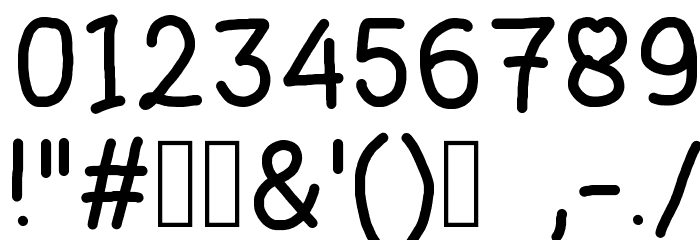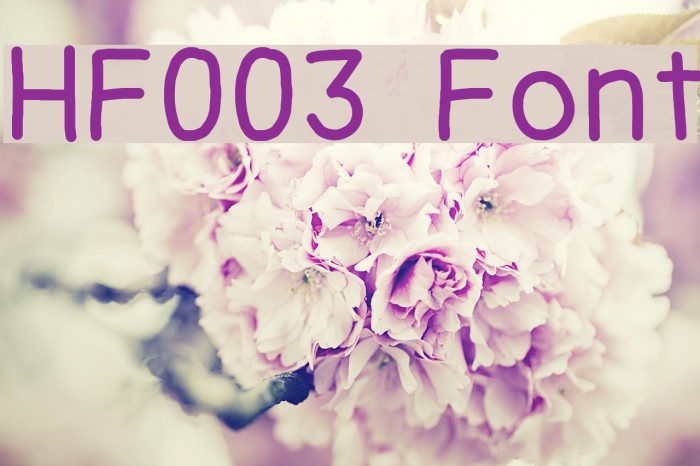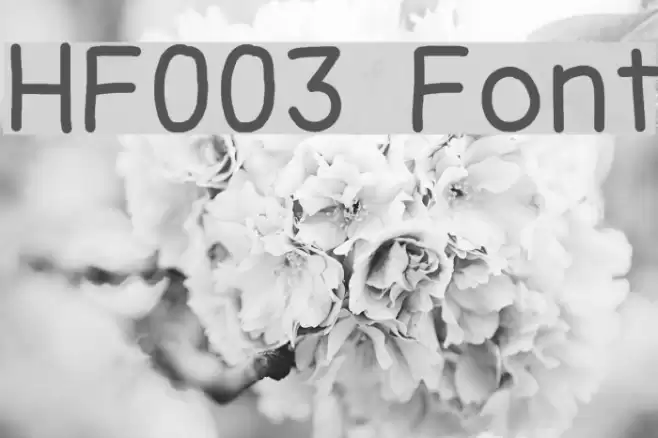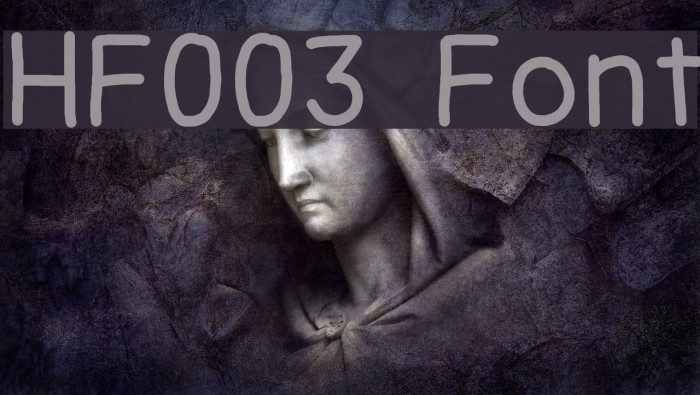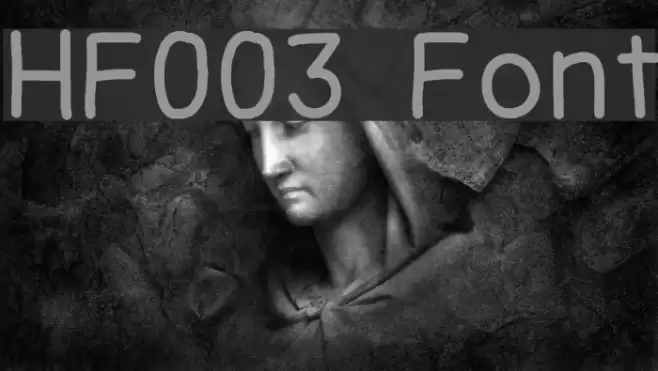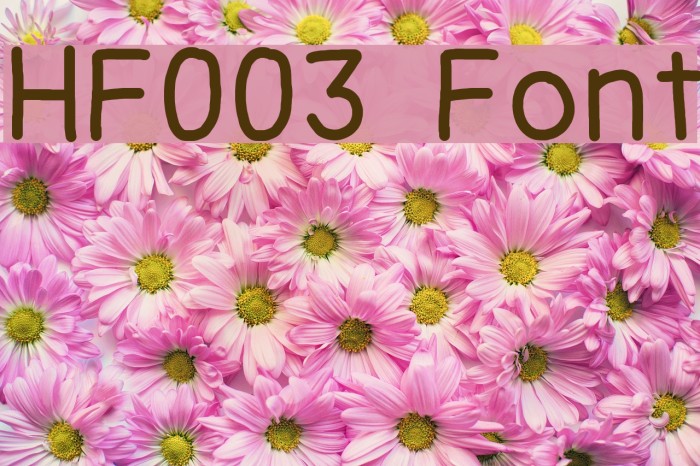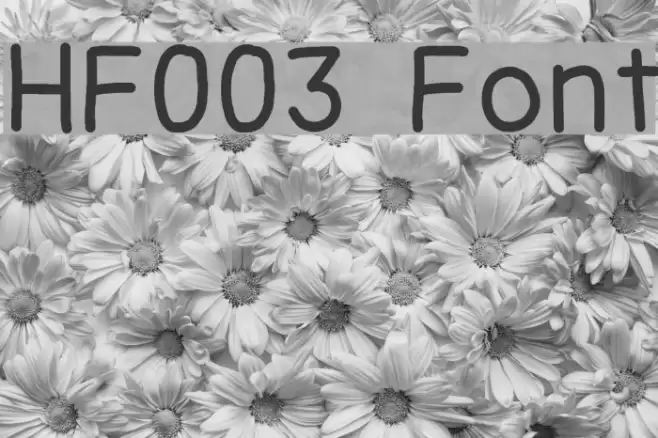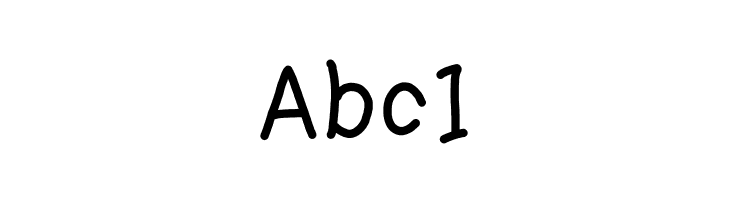
HF003 Font
HF003 Description
This font features a playful and informal style with a handwritten appearance. The characters are rounded and slightly irregular, giving it a casual and friendly feel. The uppercase and lowercase letters maintain a consistent width, while the numbers and special characters complement the overall design. The strokes are uniform in thickness, contributing to a cohesive look. This font is well-suited for projects that aim to convey a sense of approachability and creativity.
| Overall Style | Casual |
| Use Case | Headlines, Informal text, Creative projects |
| Proposed Projects | Ideal for children's books, greeting cards, casual invitations, and playful branding. |